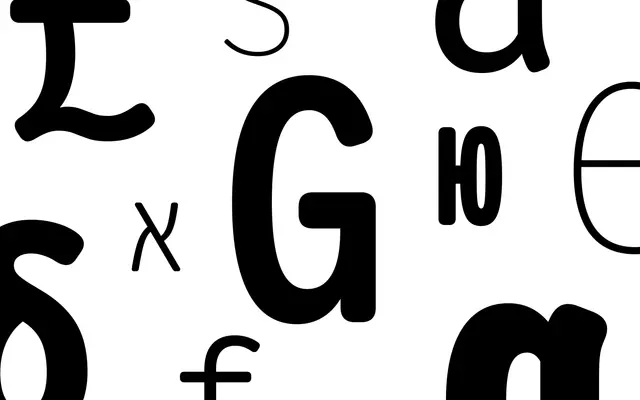
Letter Gothic Recast
Dalton Maag · Samir Reis, Emanuela Conidi, Bruno Mello, Natalia Qadreh · 2025
A variable-font revival of Roger Roberson's IBM Letter Gothic, now monospace with Slant and Weight axes from Hairline to Black.
A monospace revival by Samir Reis, Emanuela Conidi, Bruno Mello and Natalia Qadreh of the humanist typewriter face Roger Roberson drew for IBM in the 1950s. Dalton Maag's update keeps the typewriter character but turns it into a variable font with a Slant axis and a Weight axis running from Hairline to Black. Sits well in code, technical typography, editorial captions and identity systems wanting machine-age authenticity with modern range.
Dalton Maag classifies Letter Gothic Recast as a revival of the classic humanist sans typewriter typeface originally designed by Roger Roberson for IBM in the 1950s, fully updated as a monospace variable font with Slant and Weight axes from Hairline to Black.